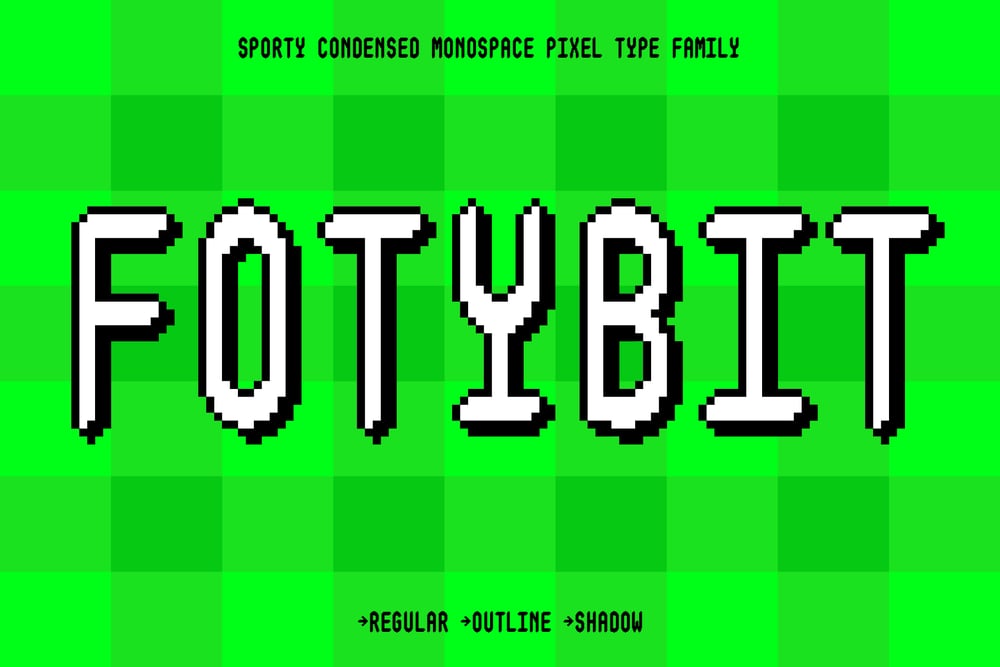
Fotybit Mono Font Family was designed by Aprian Sembada and published by Griyotype. Fotybit Mono contains 3 styles and family package options. FotybitFotybit is a condensed monospace pixel font with a sporty and dynamic vibe, inspired by the energy of football. Its clean lines and grid-based structure deliver a retro yet modern look, making it perfect for digital scoreboards, game designs, sports branding, and creative headlines.Features: Pixel Precision: A pixelated style that evokes the charm of retro gaming and digital displays. Sporty Aesthetic: Designed with a compact and athletic feel, ideal for sports-themed projects. Multilingual Support: Includes a wide range of characters to accommodate various languages. Font Variations: Available in Regular, Outline, and Shadow styles for versatile use. With Fotybit, you can combine the thrill of the game with a bold, digital edge, creating standout designs for any project.